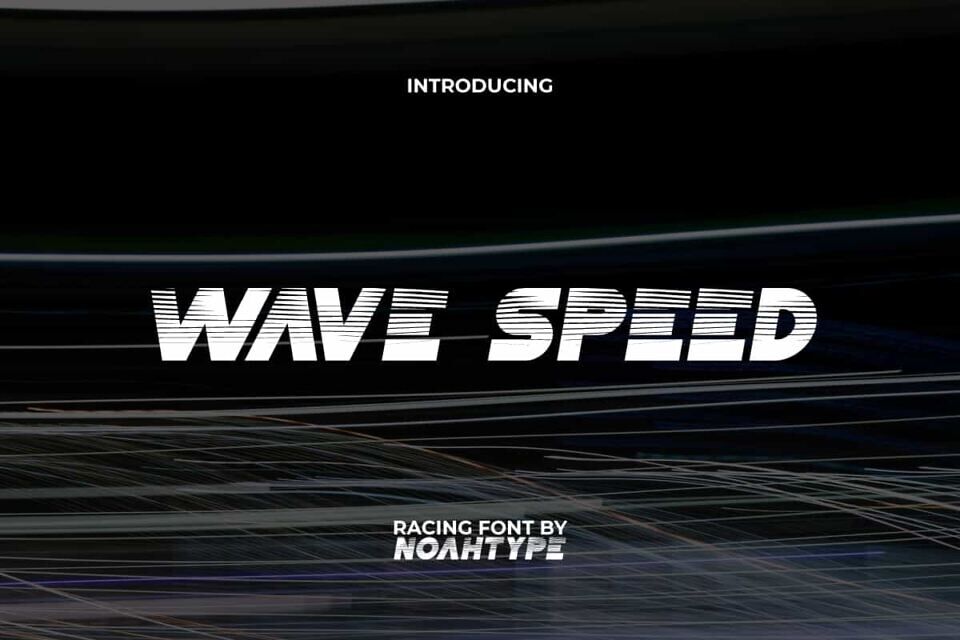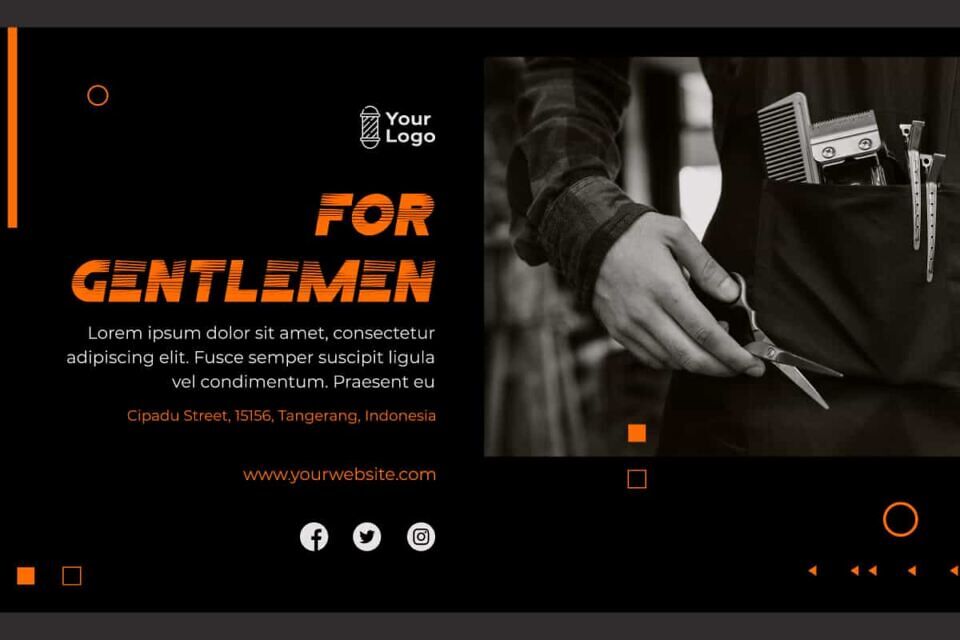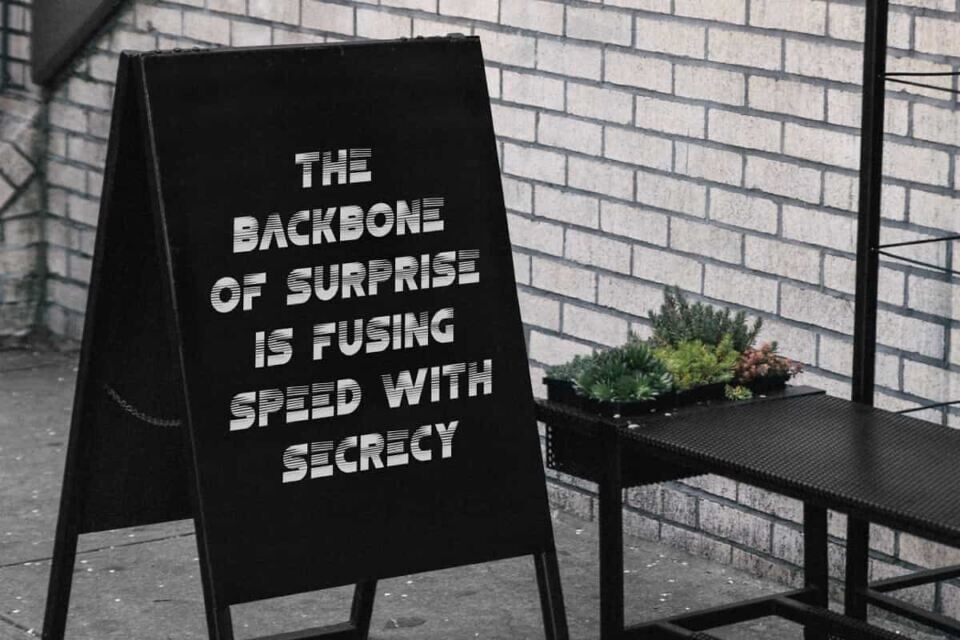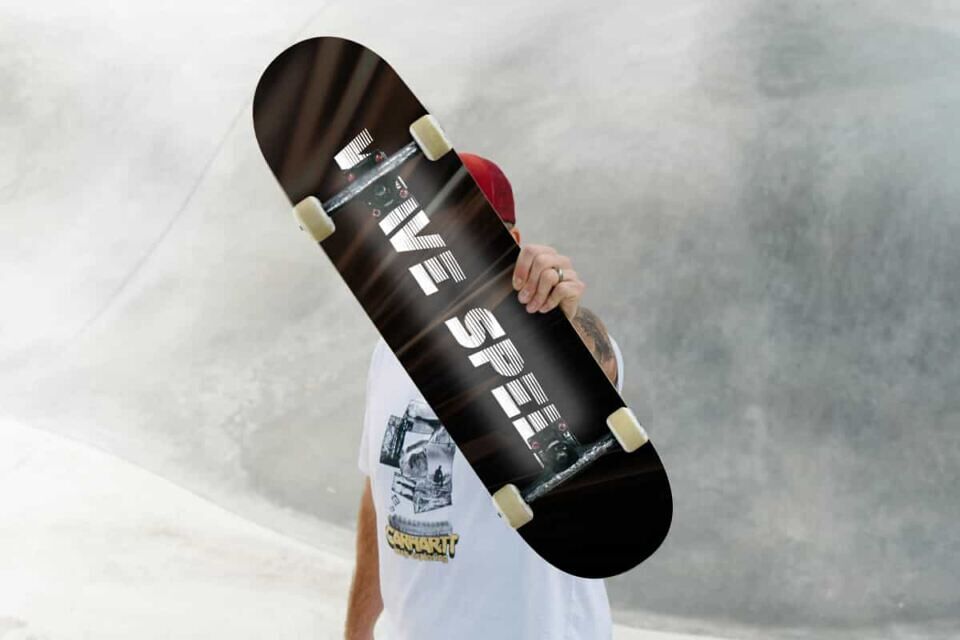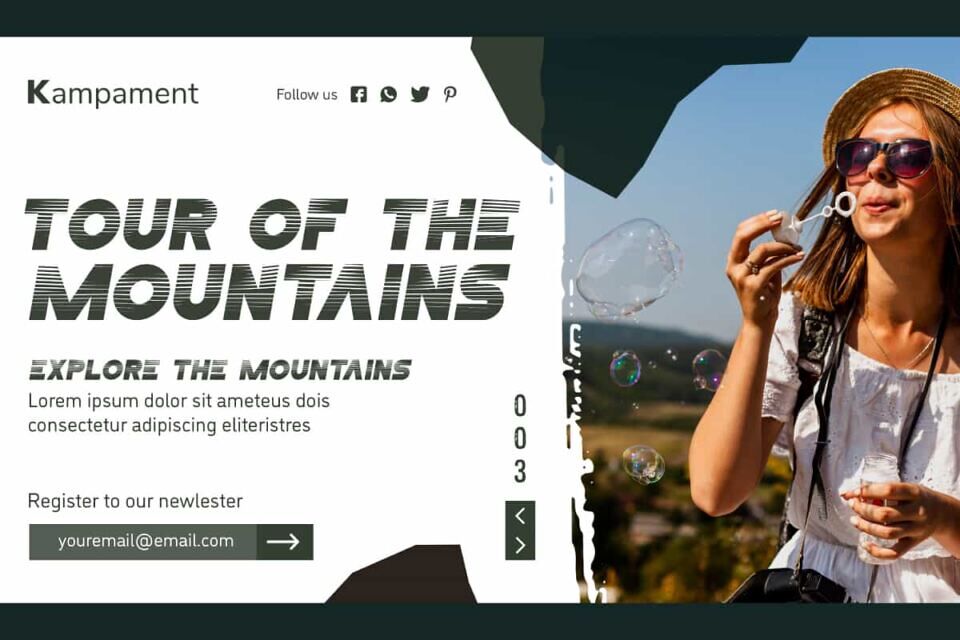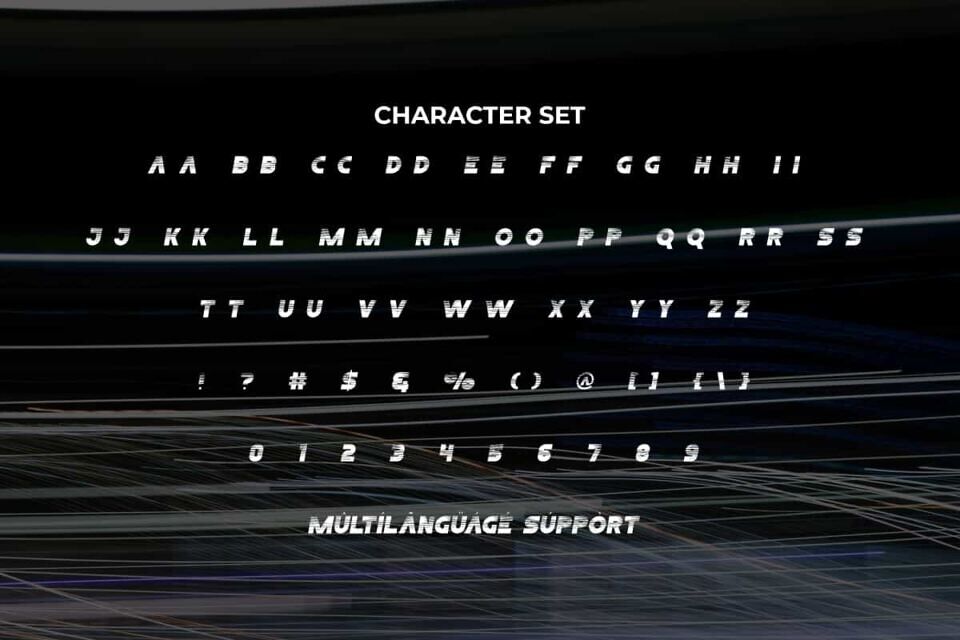
Wave Speed Font
Wave Speed Font is a speedy wind stripped racing themed font with ornament decorated letters. This font has a distinctive feature in the strokes on each character which makes it look fast. This font will be suitable for a lot of projects, such as custom design, banner, website, stationery, label, poster, signage, catalog, cover, quotes, and more!
Wave Speed Font includes full set of Uppercase and Lowercase Basic Characters, Numerals and Punctuation. This font has an attractive appearance that will make you believe it is the perfect choice for many industries, such as sports, racing, game, automotive, advertisement, café, event organizer, fashion, printing, publishing, etc.